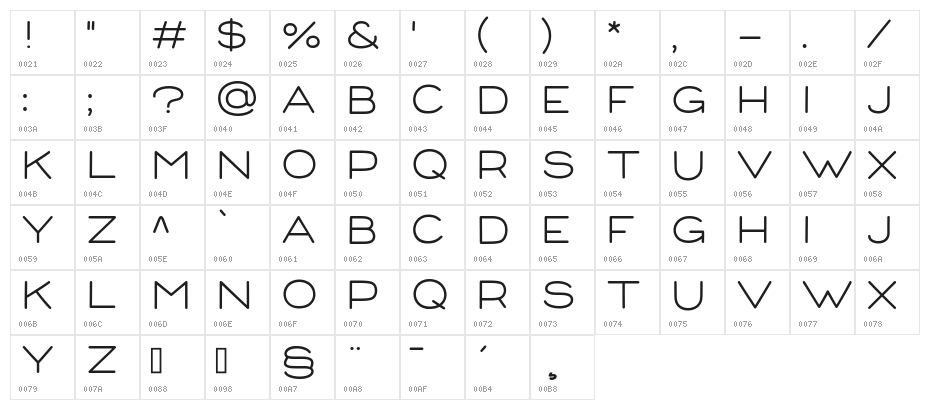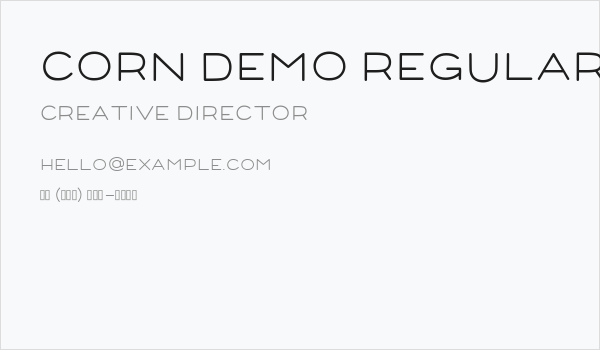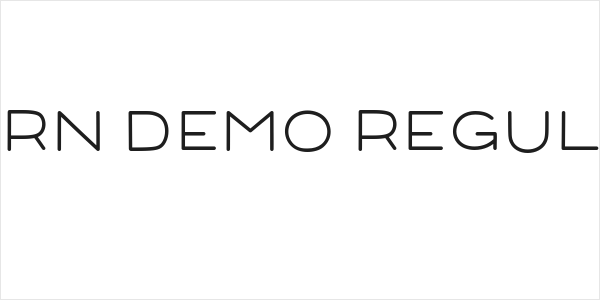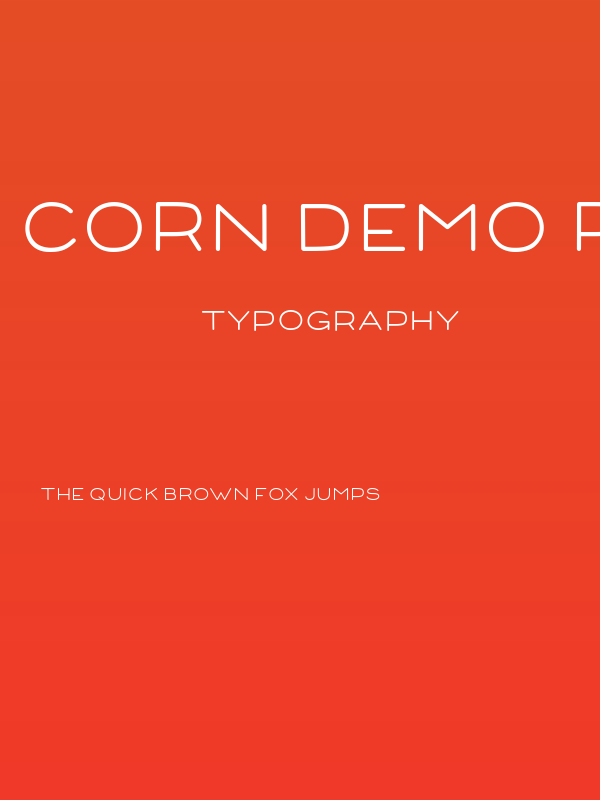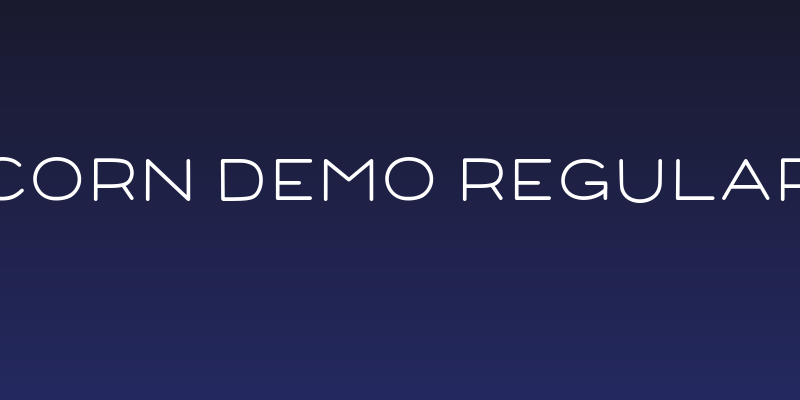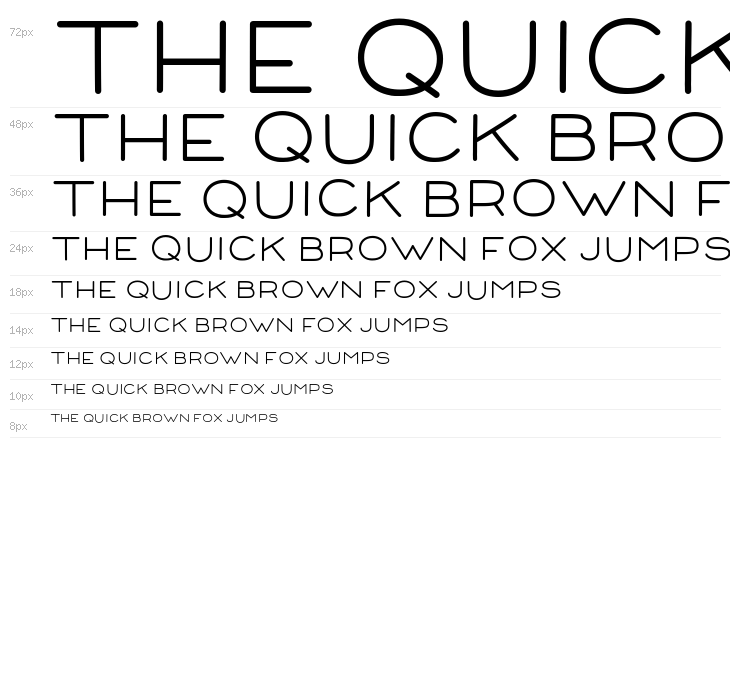
Corn Demo Regular Font
Corn Demo Regular Description
This font features a clean and modern design with a geometric structure. The characters are evenly spaced, providing a balanced and harmonious look. The strokes are consistent in width, giving it a uniform appearance. The uppercase and lowercase letters are well-proportioned, making it suitable for a variety of applications. The numerals and special characters maintain the same sleek style, ensuring readability and versatility. Its simplicity and clarity make it ideal for contemporary design projects.
| Proposed Projects | Ideal for branding, web design, advertising, and editorial use. |